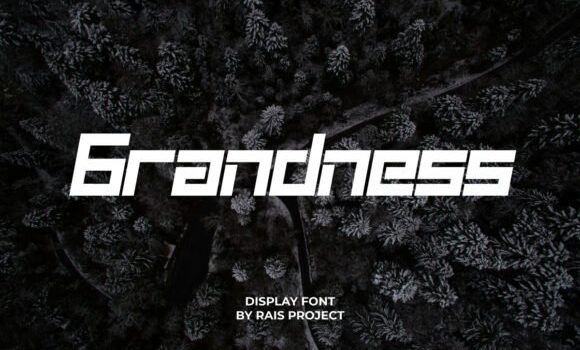
grandness
Grandness Font – Free Download Introduction to Grandness Font Grandness is a modern and sporty sans serif font with a unique shape that is great for sports, technology, games, etc. 📸 Preview Gallery 6 images 📌 Product Name Grandness Font